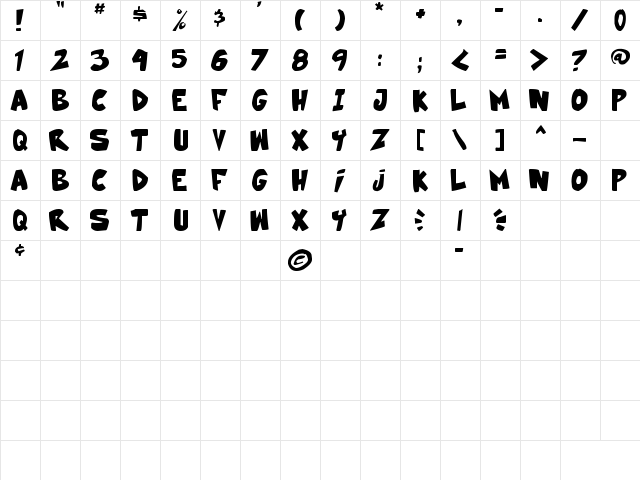
30 Pack Girl Bold
Design Context for 30 Pack Girl Typeface
30 Pack Girl is a composed and adaptable typeface that performs quietly and consistently across a wide range of design contexts. The heavy weight commands attention and anchors typographic hierarchies.
Pro Tip: Pair 30 Pack Girl with a font of contrasting weight or personality to build a more expressive typographic hierarchy.